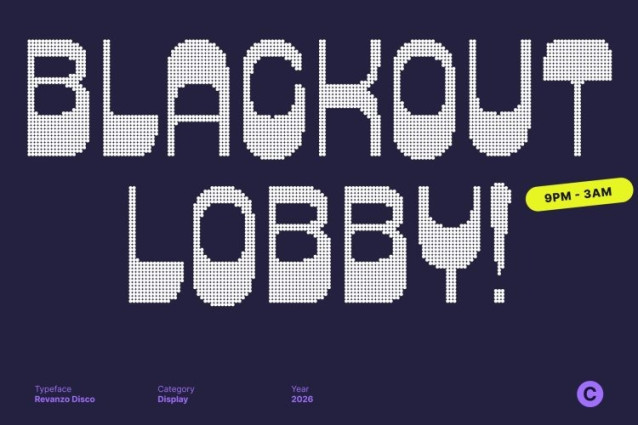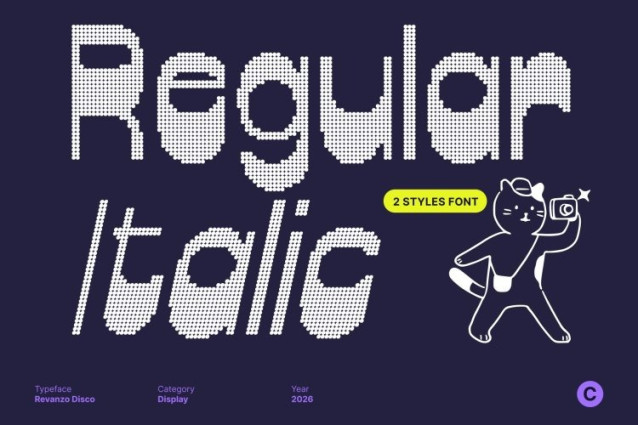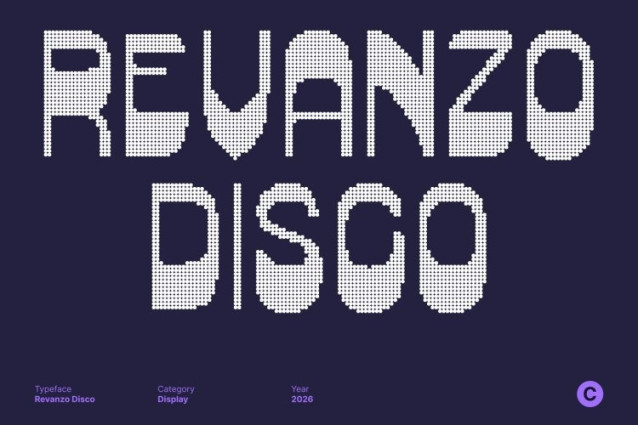
Revanzo Disco Font
Revanzo Disco Font This brings retro funkiness to life through a striking reverse-contrast design. Thick vertical strokes paired with thinner horizontals flip traditional typography on its head, creating a bold, eye-catching rhythm that instantly commands attention.
Groovy Nostalgic Character
Inspired by the playful spirit of vintage design, channels nostalgic retro nuances with a funky attitude. Its expressive letterforms echo the energy of classic eras while feeling fresh, lively, and unmistakably modern.
Designed to Stand Out
Built for impact, this font excels in eye-catching display use. From posters and headlines to logos and branding, this font ensures every word pops with confidence and personality.
A Funky Statement Typeface
This is a reverse-contrast display font that blends retro charm with a bold visual twist. Perfect for designs that demand attention and style, it delivers a memorable typographic statement with unmistakable disco-era flair.